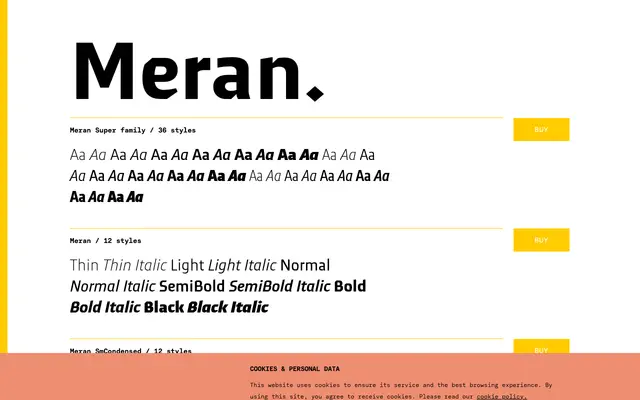
A 36-style grotesque superfamily from TYPE BY spanning three widths, six weights and matching italics throughout.
Meran is a grotesque sans offered in three width variants: the standard cut, a Condensed and a SmCondensed, each running from Thin to Black with corresponding italics. All styles share a consistent OpenType feature set including small capitals, oldstyle figures, tabular figures, fractions and slashed zero. The breadth of the family makes it practical for multi-format publishing where consistent typographic voice is needed across body text and display sizes.
The family presents clean upright and italic forms across a broad weight range with condensed variants, consistent with a contemporary grotesque sans-serif. No obvious humanist or geometric traits are evident from the specimen.